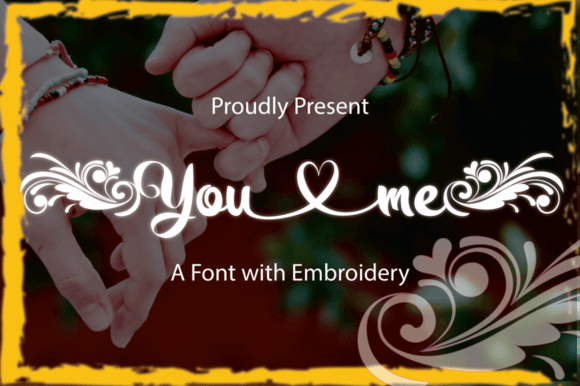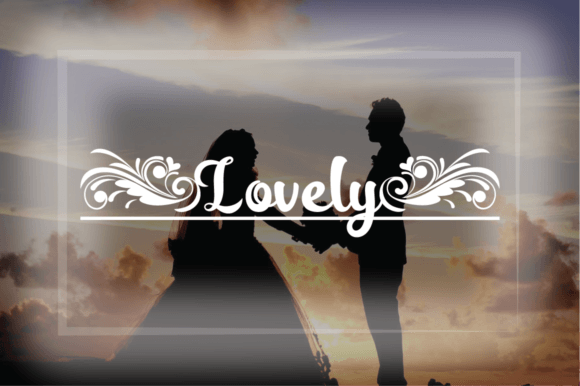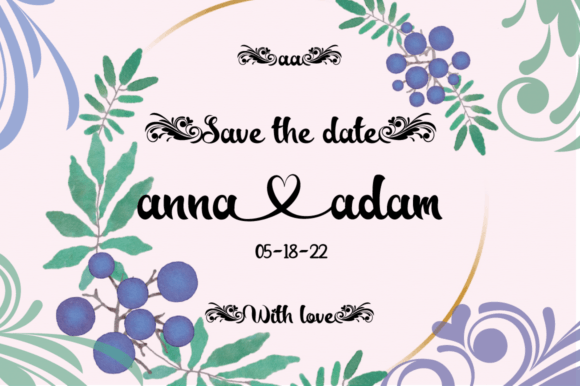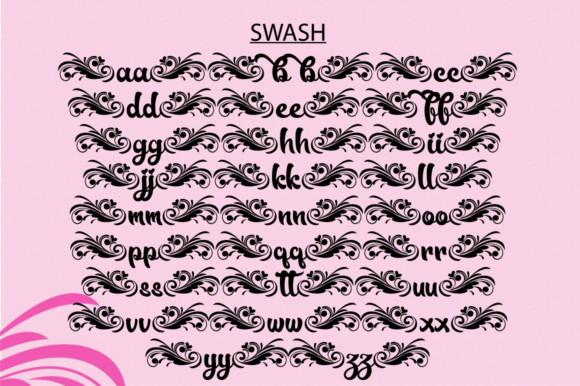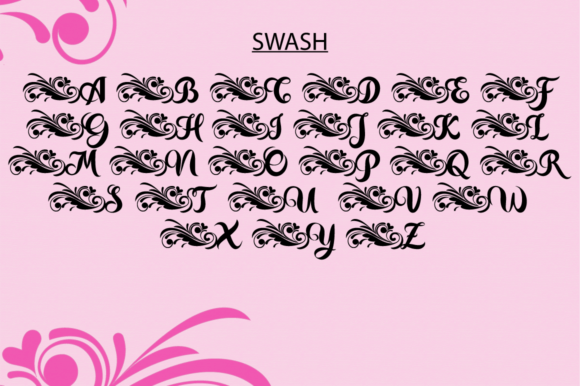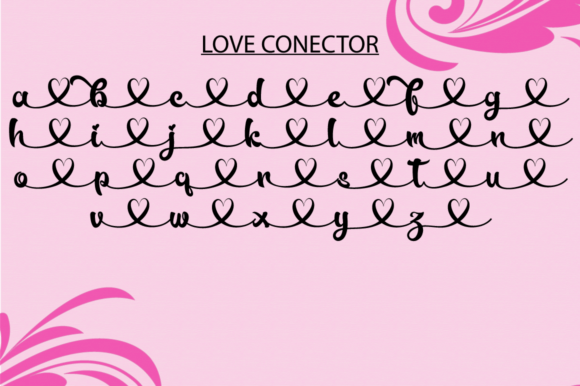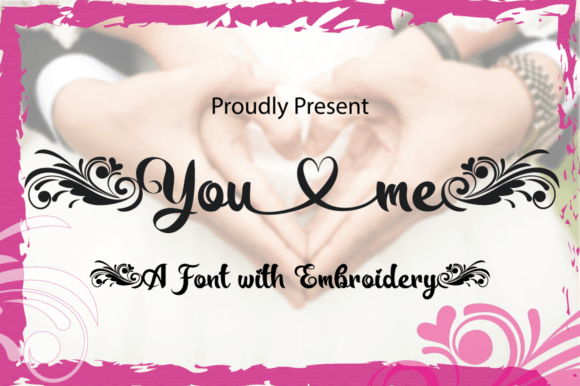
You and Me Font
About You and Me Font
“You and Me” is not just a font; it’s a playful and modern calligraphy script typeface inspired by the elegance and softness of the bird of paradise. Infused with the graceful attributes of this enchanting bird, each glyph in this font carries a unique and delightful touch, creating a harmonious and visually appealing design.
This typeface is tailor-made for various design needs, making it highly versatile. Imagine “You and Me” bringing a touch of elegance to wedding invitations, adding a stylish flair to t-shirt designs, or creating a personalized and charming touch to personal logos.
Envision “You and Me” becoming a staple font for your design toolkit, contributing to projects that require a playful and modern calligraphy script. The incorporation of the bird of paradise elements adds a layer of sophistication, making your text visually captivating.
For wedding invitations that demand a blend of elegance and playfulness, “You and Me” shines as a font that elevates the overall aesthetic. Its modern calligraphy style and unique touches make it a perfect choice to enhance the beauty of wedding-related designs.
In any context that requires a playful and modern calligraphy script, “You and Me” is the font that delivers. Let it be the key element that transforms your designs, making them more visually stunning and engaging.
Whether you’re working on digital or print designs, “You and Me” is a font that brings a touch of sophistication and modernity. Let it be the font that adds that special charm to your wedding invitations, t-shirt designs, personal logos, and more.
Let “You and Me” be the font that infuses your designs with playful elegance, turning them into captivating and visually delightful expressions. Embrace its unique inspiration, and watch it bring a new level of charm to your creative projects.